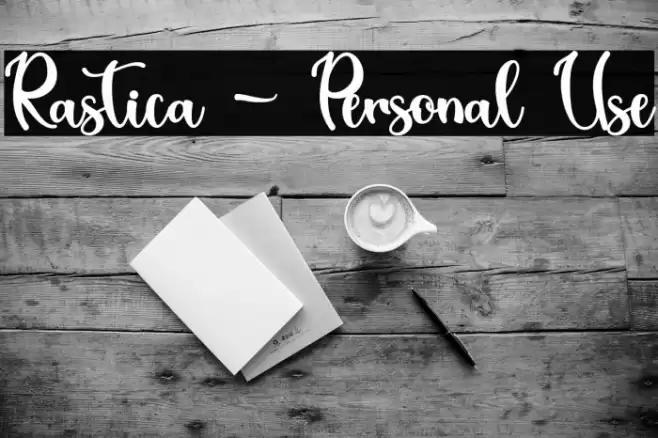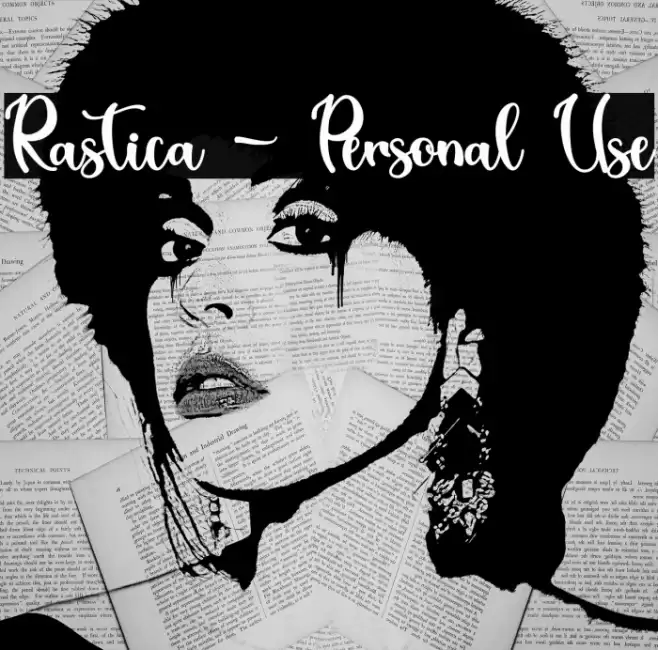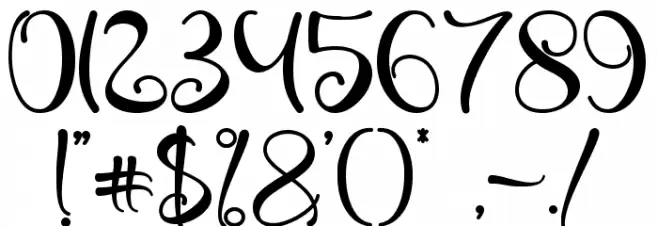
Rastica - Personal Use Font
Rastica - Personal Use Description
This font features a playful and whimsical script style with a hand-drawn appearance. The uppercase letters are characterized by their flowing, cursive lines and occasional flourishes, giving them a lively and dynamic feel. The lowercase letters maintain a consistent style, with smooth curves and a slightly bouncy baseline that adds to the font's charm. The numerals are equally expressive, with a unique flair that complements the overall design. Special characters are creatively integrated, enhancing the font's versatility. This font exudes a sense of fun and creativity, making it ideal for projects that require a personal and artistic touch.
A playful, hand-drawn script font with whimsical flourishes from Uncategorized fonts.
- Proposed Projects: Ideal for greeting cards, invitations, branding, and creative posters.
- Use Case: Logos, Headlines, Invitations